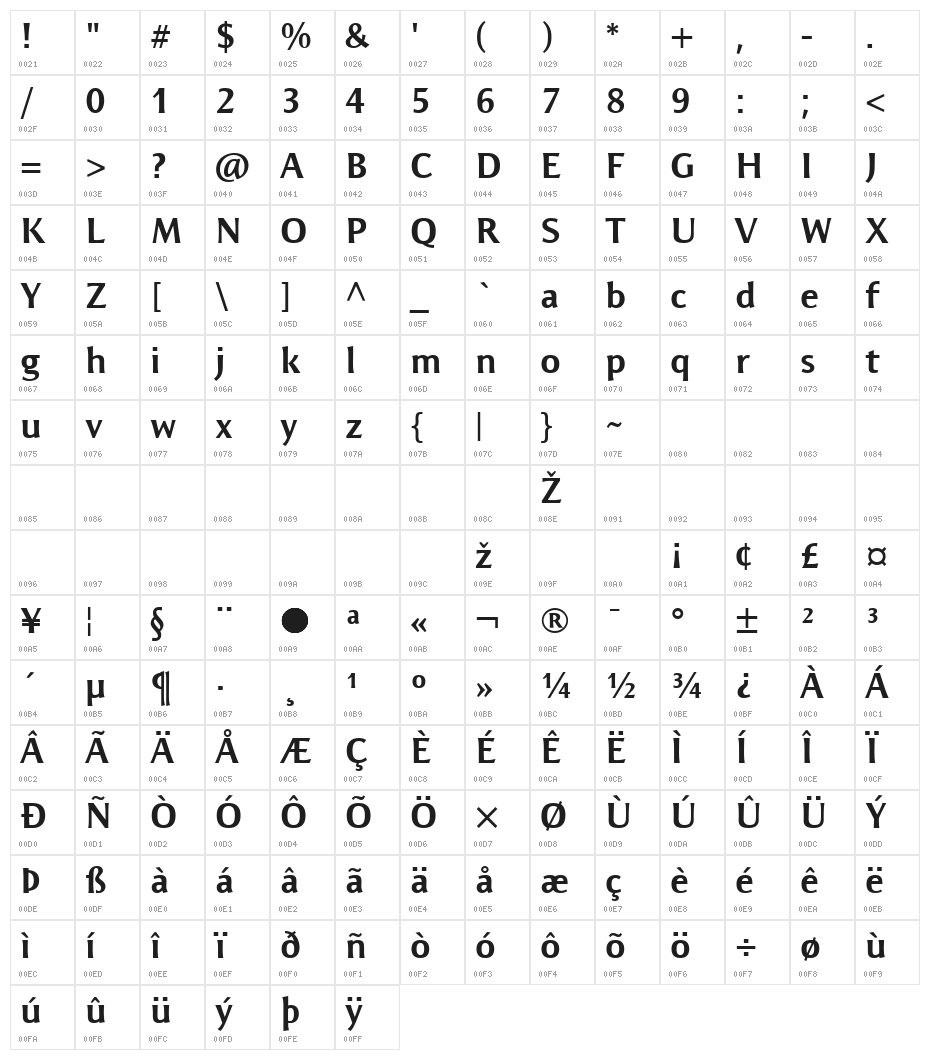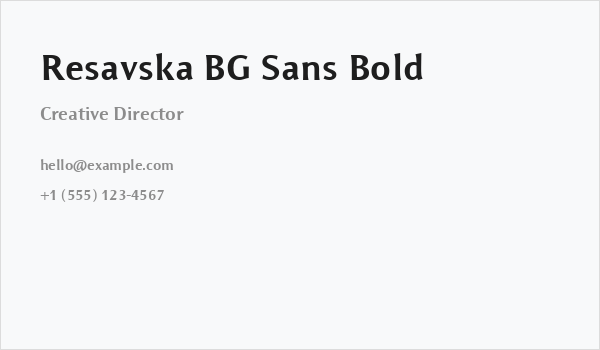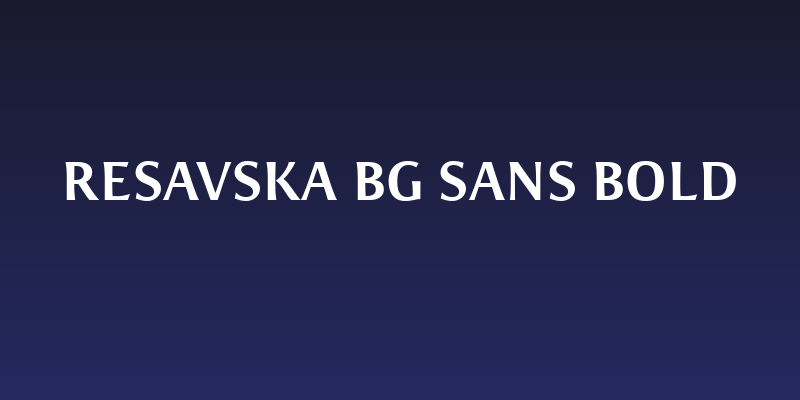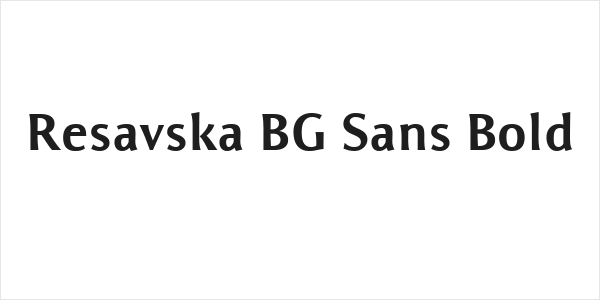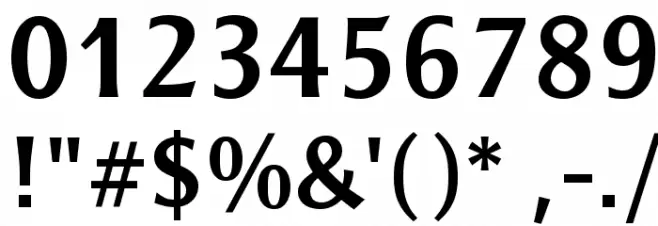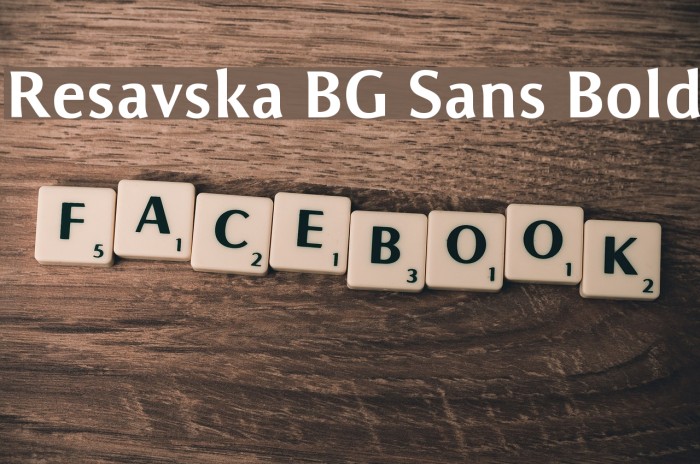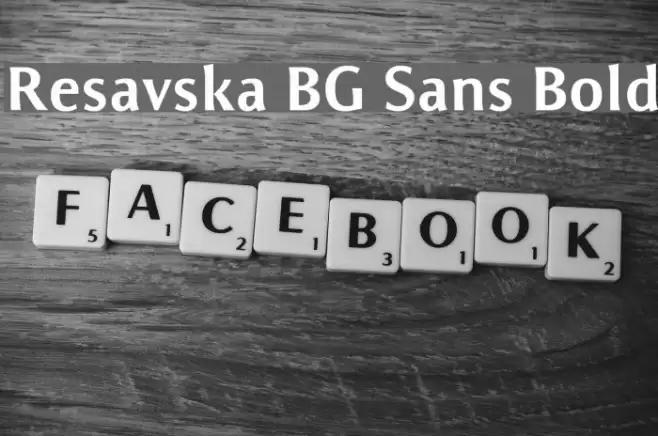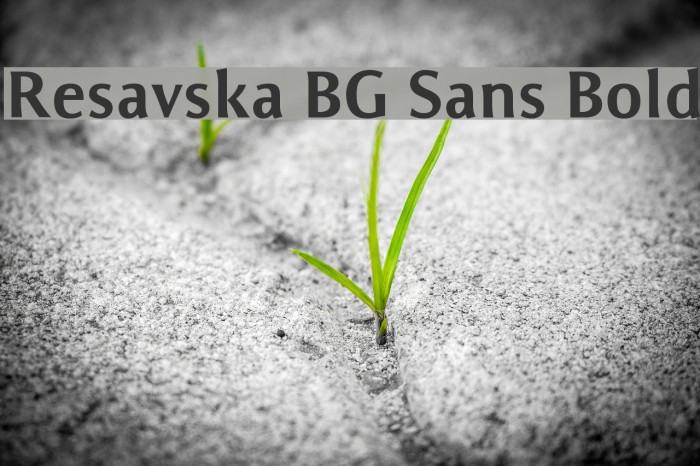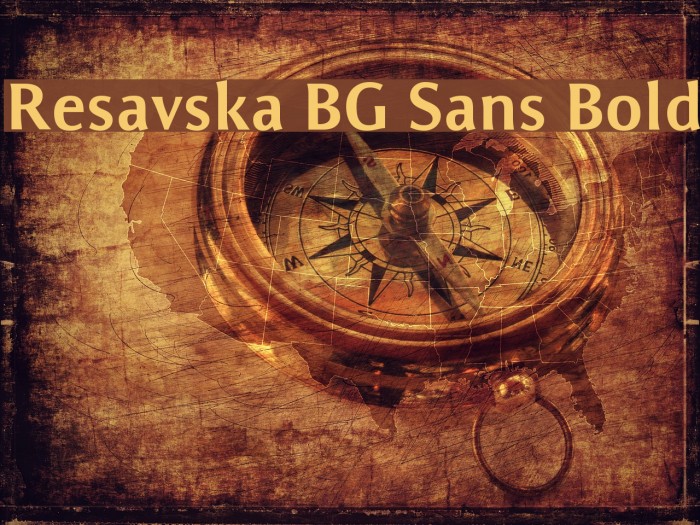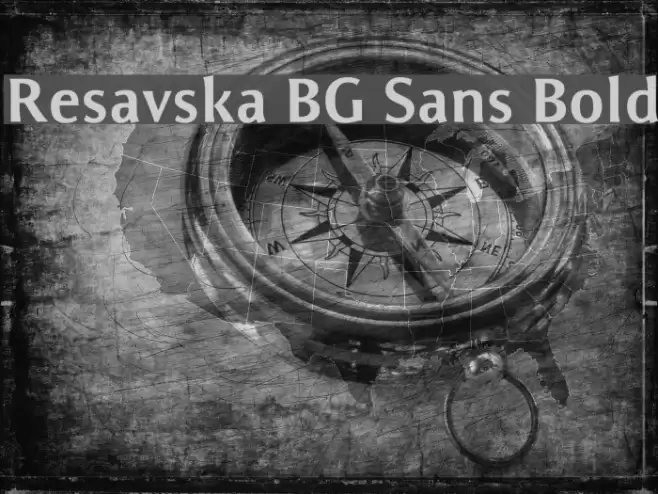
Resavska BG Sans Bold Font
Resavska BG Sans Bold Description
This font features a bold and modern sans-serif style with clean, geometric lines and a strong presence. The uppercase letters are uniform in height, providing a balanced and cohesive look. The lowercase letters maintain a similar width, ensuring readability and consistency. The numerals are clear and distinct, with a slightly rounded appearance that complements the overall design. Special characters are well-defined, adding versatility to the font's usage. The bold weight enhances its visibility, making it suitable for various design applications.
| Proposed Projects | Ideal for branding, headlines, posters, and digital media where a strong, modern impression is desired. |